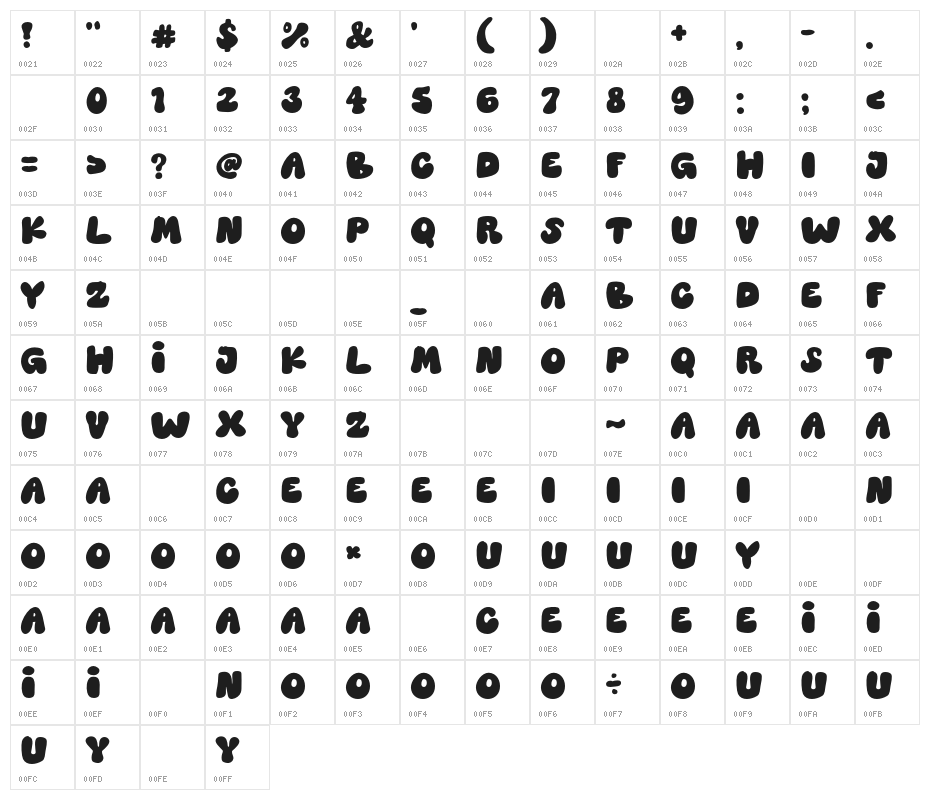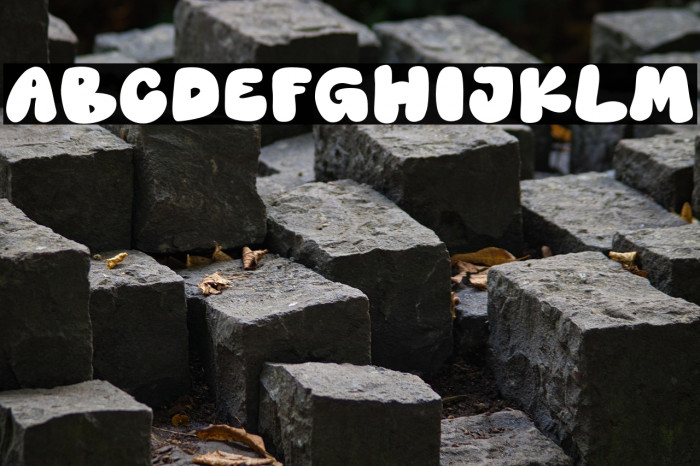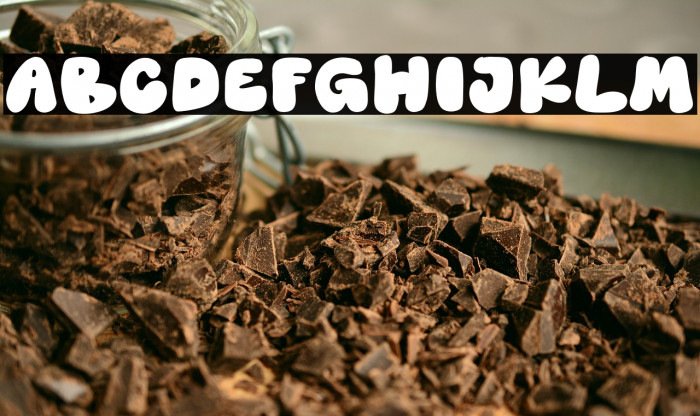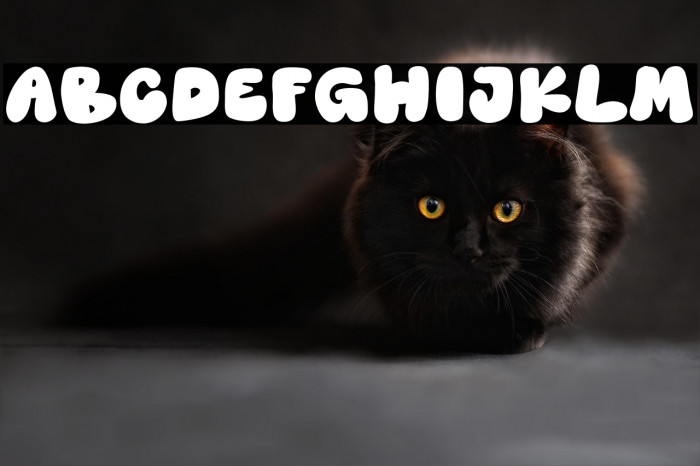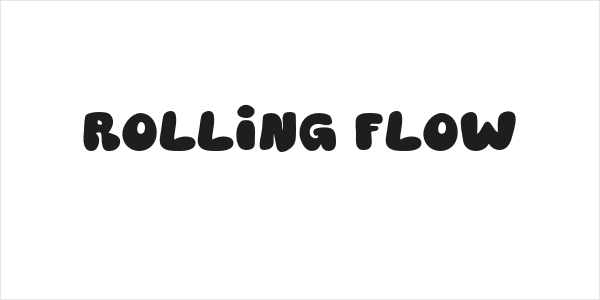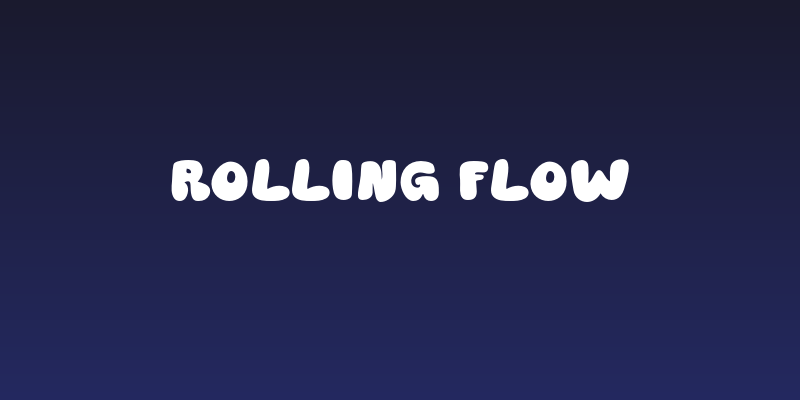
Rolling Flow Font
Rolling Flow Description
A bold, playful font with rounded, bubbly characters and a whimsical style.
| Use Case | Logos, Headlines |
| Proposed Projects | Children's books, playful branding, party invitations. |